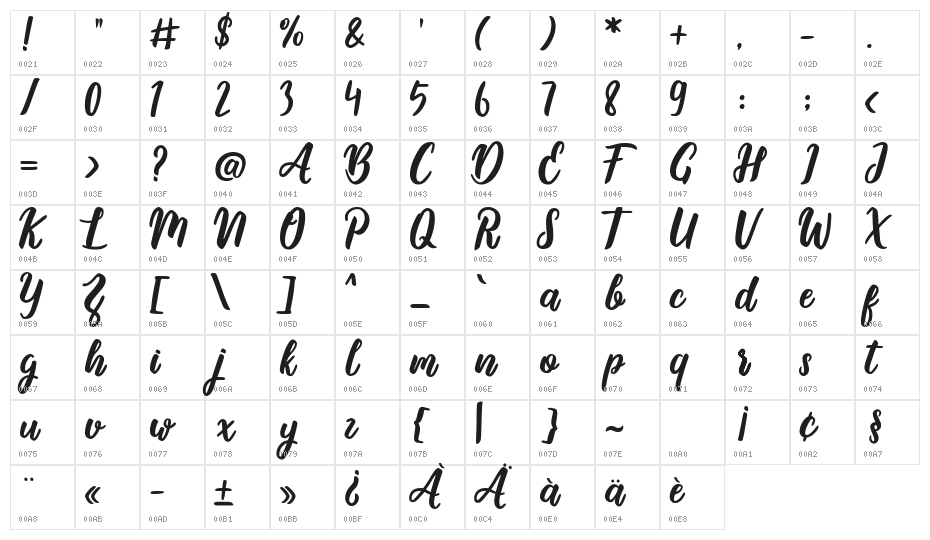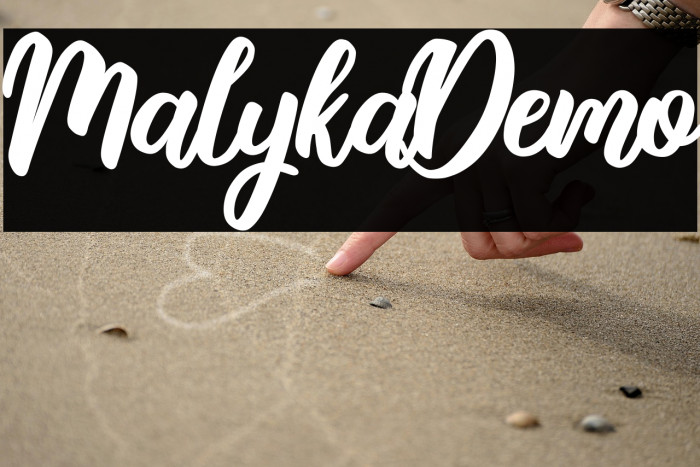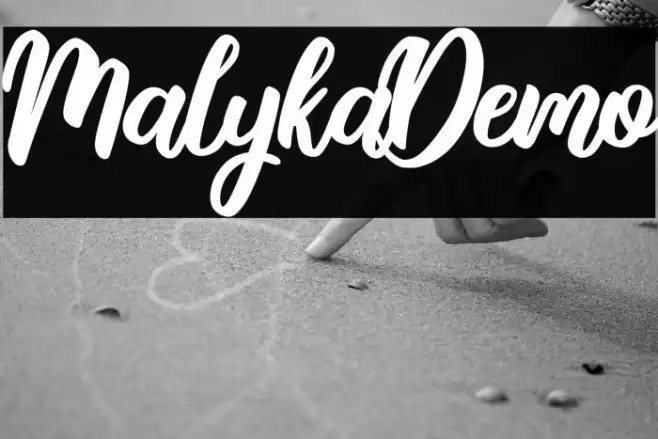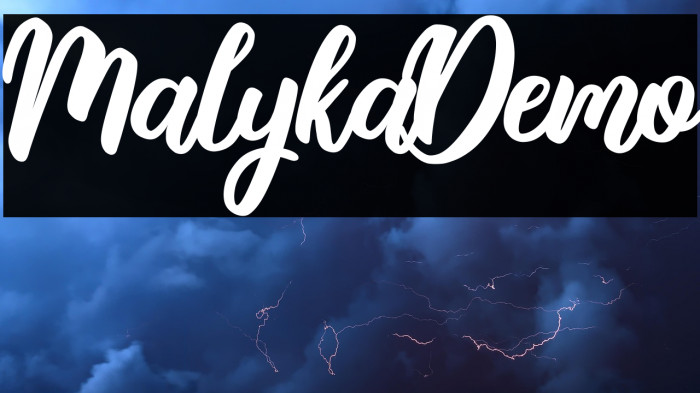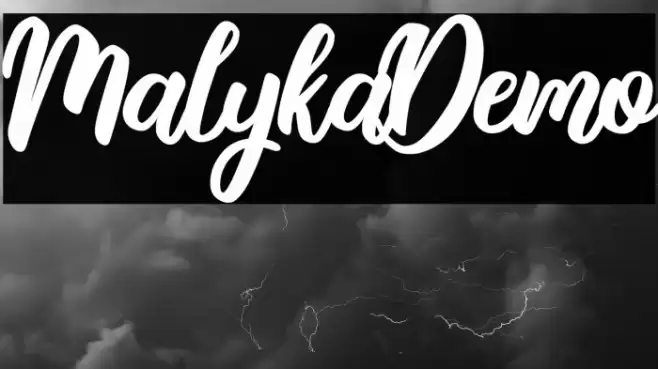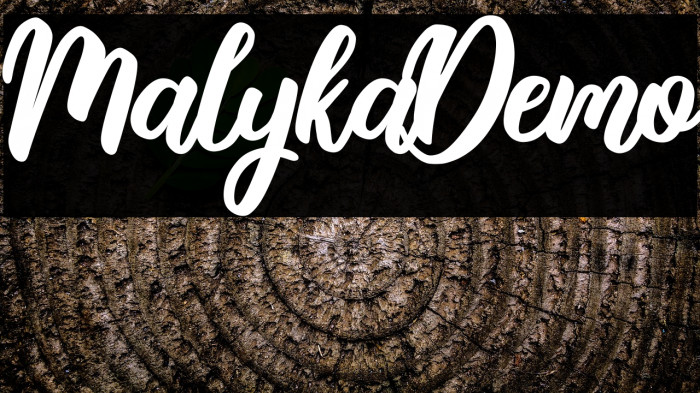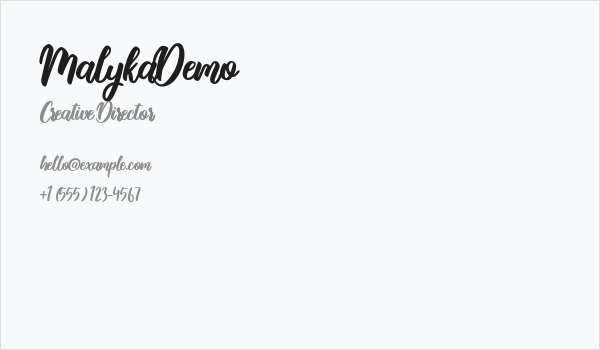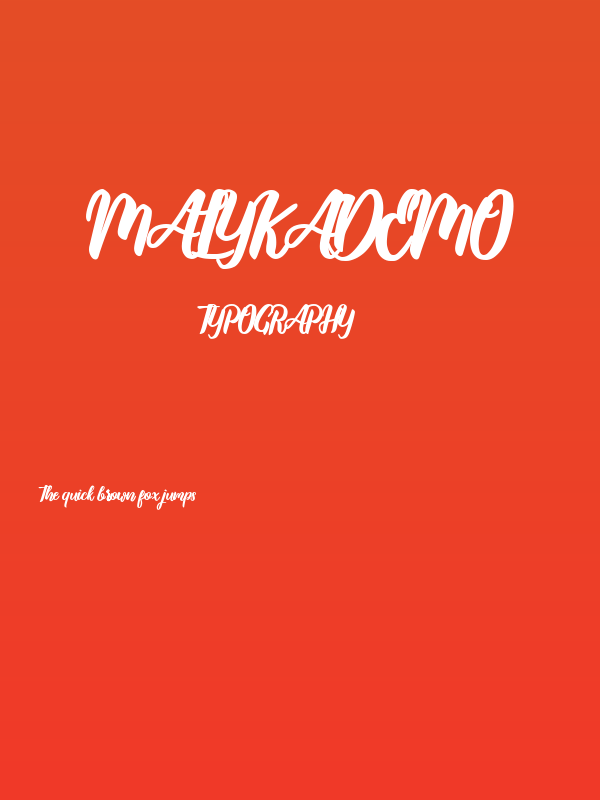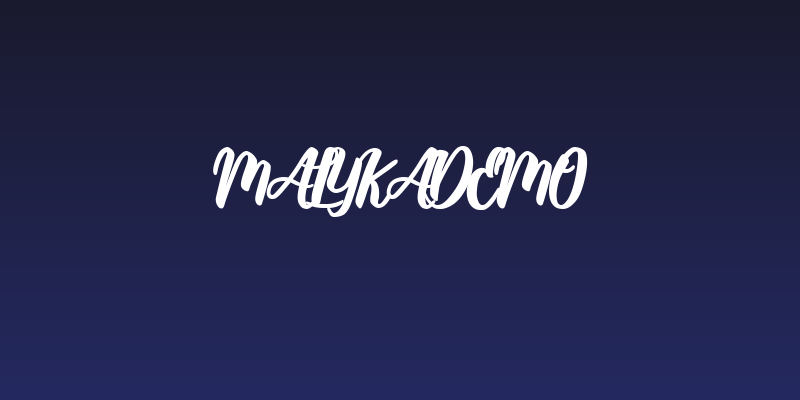
MalykaDemo Font
MalykaDemo Description
This font features a bold, flowing script style that exudes elegance and flair. The characters are interconnected, creating a seamless and fluid appearance that mimics natural handwriting. The uppercase letters are slightly more elaborate, with decorative flourishes that enhance their visual appeal. The lowercase letters maintain a consistent rhythm and are slightly more restrained, ensuring readability. The numerals are designed to match the overall style, with a playful yet sophisticated look. Special characters are included, maintaining the same artistic flair. This font is ideal for projects that require a personal touch or a sense of luxury.
| Proposed Projects | Wedding invitations, luxury branding, personal stationery, greeting cards. |